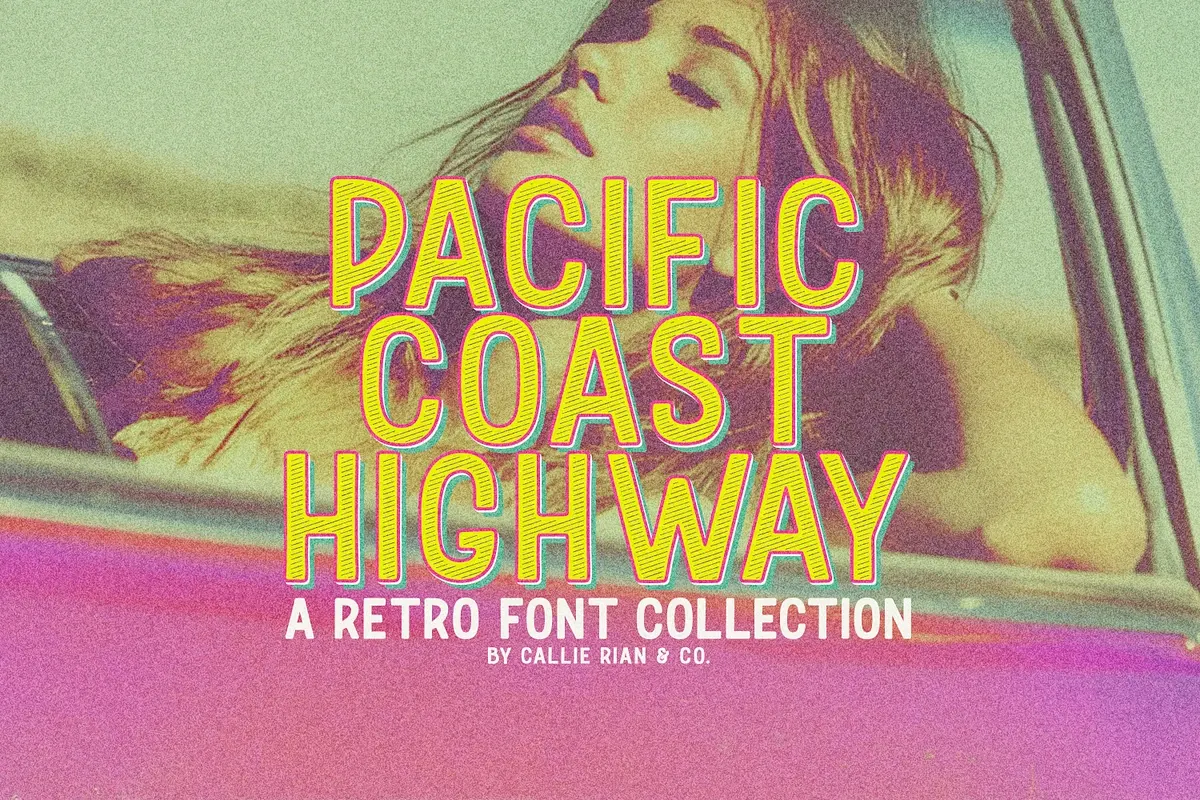
The Pacific Coast Highway | Retro Fonts collection is a vibrant and stylish typeface designed by Callie Hegstrom. Inspired by the scenic beauty and laid-back atmosphere of the Pacific Coast, this collection offers a modern take on retro typography, making it perfect for projects that need a touch of vintage flair.
• Design: The fonts feature clean lines with subtle retro elements, capturing the essence of classic typography while maintaining a contemporary feel.
• Usage: Ideal for magazine layouts, branding, advertising, packaging, and any design that benefits from a touch of retro sophistication.